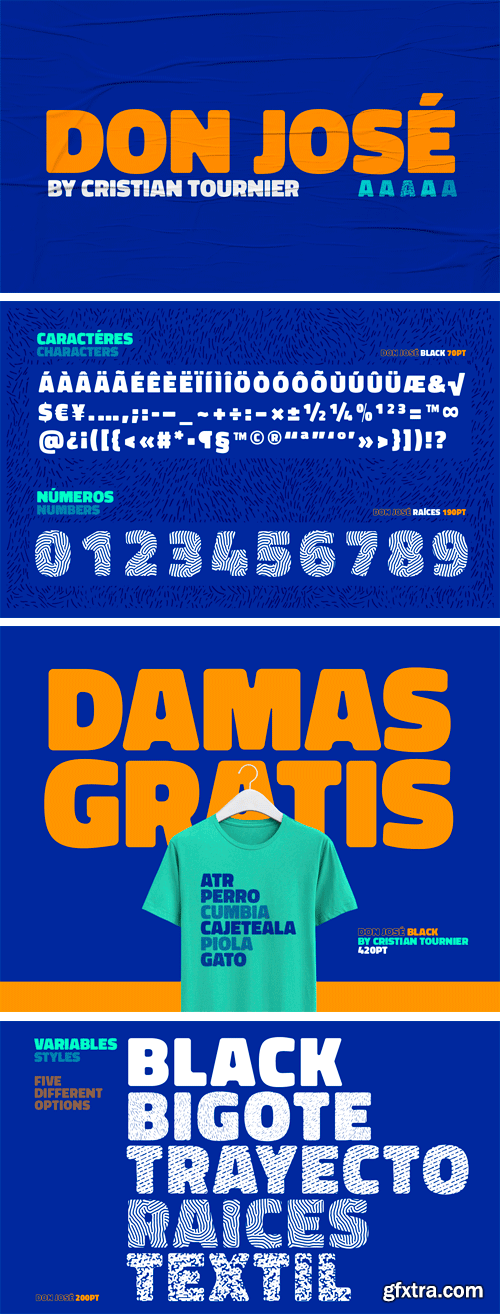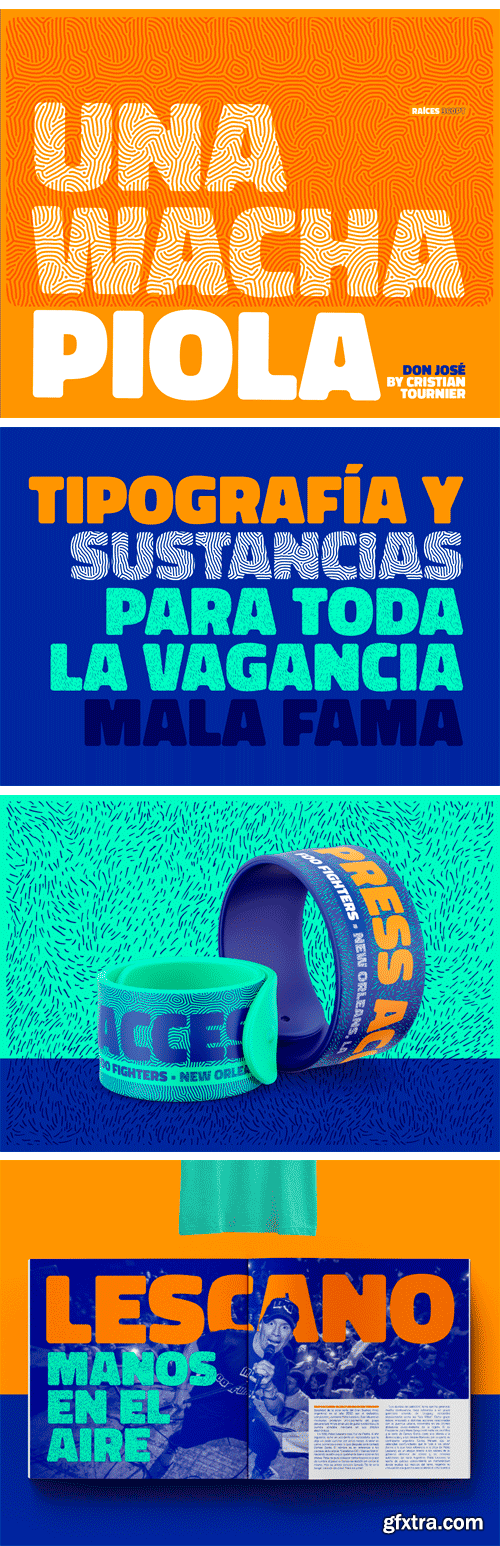
Don Jose Font Family
Don José is a sans-serif family with a high box, designed for holders. It has 5 styles: Black, Roots, Mustache, Journey and Textile. The greatest virtue that this family presents is the black weight, of all its variants, which makes it interesting for headlines or highlights for magazines, books, posters, or any text that you want to highlight.